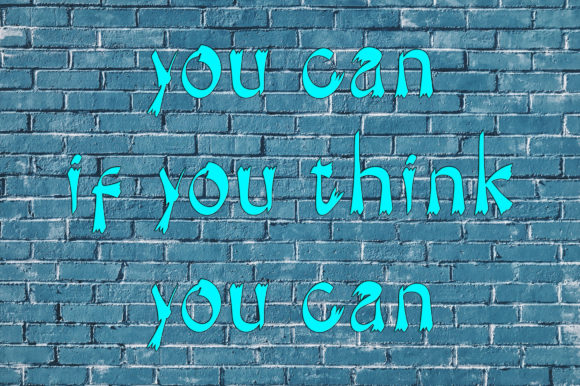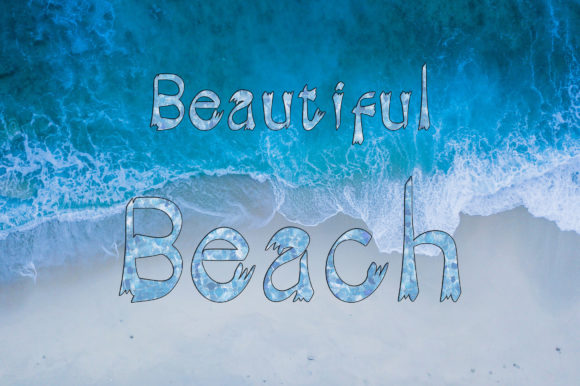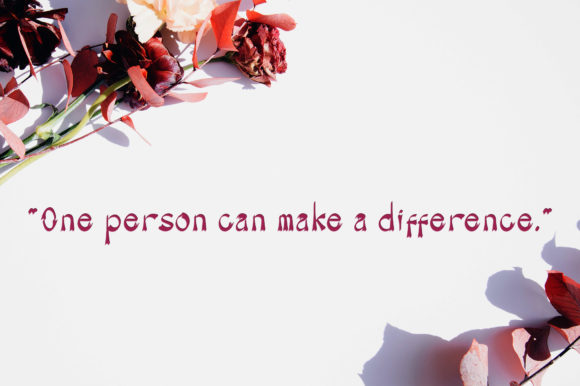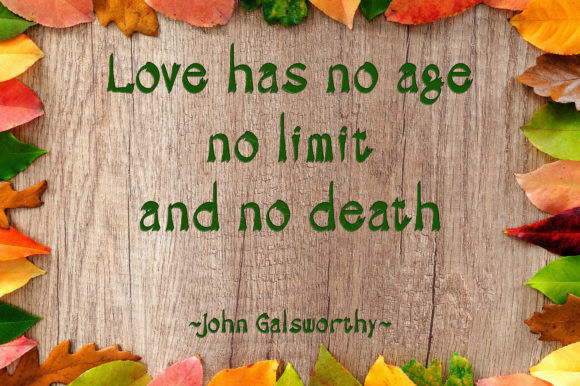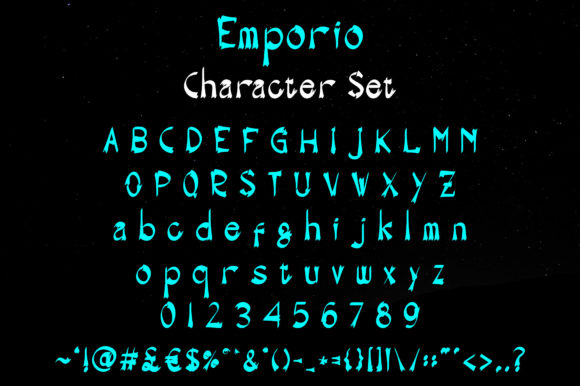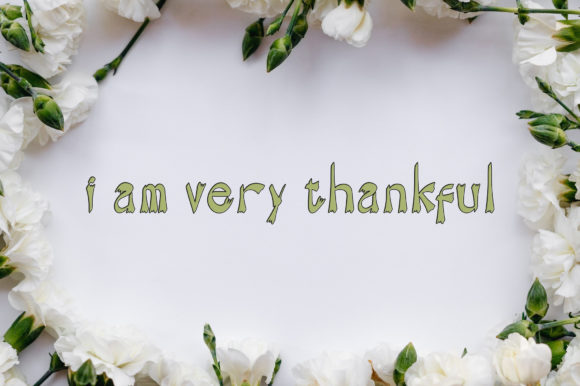
Introducing Emporio Font: The Spooky Display Font for Halloween Designs
Are you looking for a font that will add a touch of spookiness to your Halloween designs or October party materials? Look no further than Emporio Font! This cool and eerie display font is perfect for designers and crafters who want to create eye-catching and eerie designs that will leave a lasting impression.
What is Emporio Font?
Emporio Font is a unique and creative display font that is specifically designed to add a touch of spookiness to your designs. Its eerie and creepy style makes it perfect for Halloween-themed designs, October party materials, and any other project that requires a bold and eye-catching font.
Key Features of Emporio Font
• Unique and Creative Design: Emporio Font has a one-of-a-kind design that is sure to grab attention. Its spooky and eerie style makes it perfect for Halloween-themed designs and October party materials.
• Display Font: Emporio Font is a display font, which means it’s perfect for headlines, titles, and short phrases. It’s not suitable for body text, but it’s ideal for adding a bold and eye-catching touch to your designs.
How to Use Emporio Font in Your Designs
Using Emporio Font in your designs is easy! Here are a few tips to get you started:
• Halloween-themed Designs: Use Emporio Font to create spooky and eye-catching Halloween-themed designs, such as flyers, posters, and social media graphics.
• October Party Materials: Add Emporio Font to your October party materials, such as invitations, banners, and decorations, to create a spooky and festive atmosphere.
• Typography-focused Designs: Use Emporio Font as a focal point in your typography-focused designs, such as quote posters, inspirational quotes, and title pages.
Tips and Tricks for Getting the Most out of Emporio Font
Here are a few tips and tricks to help you get the most out of Emporio Font:
• Experiment with Different Colors: Emporio Font looks great in bold and bright colors, but it also works well in darker and more muted tones. Experiment with different colors to find the perfect look for your design.
• Use it in Combination with Other Fonts: Emporio Font works well in combination with other fonts, especially serif fonts. Try pairing it with a serif font for a bold and eye-catching look.
• Play with Different Sizes: Emporio Font looks great in large sizes, but it also works well in smaller sizes. Experiment with different sizes to find the perfect fit for your design.
Emporio Font is a unique and creative display font that’s perfect for adding a touch of spookiness to your Halloween designs or October party materials. Its eerie and creepy style makes it a great choice for designers and crafters who want to create eye-catching and eerie designs. With its easy-to-use design and compatibility with various design software, Emporio Font is a great addition to any designer’s toolkit.